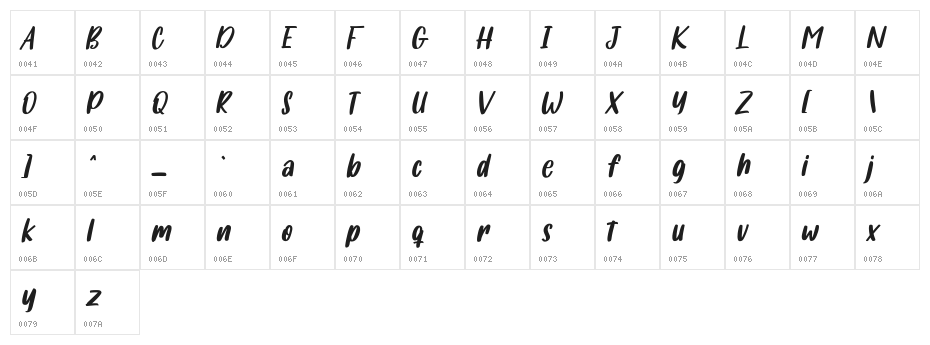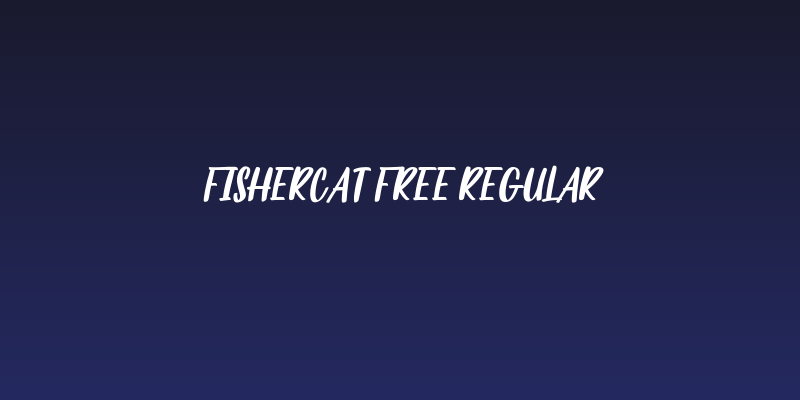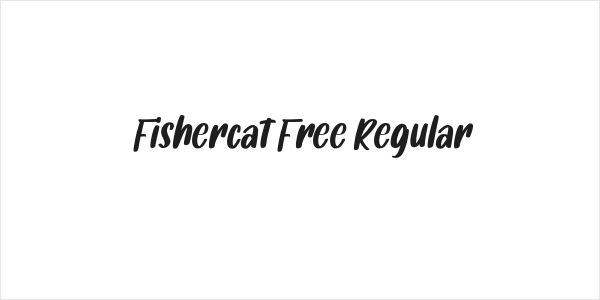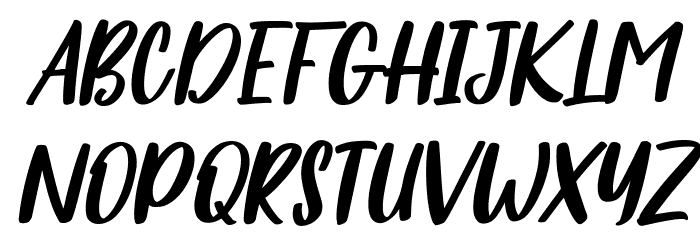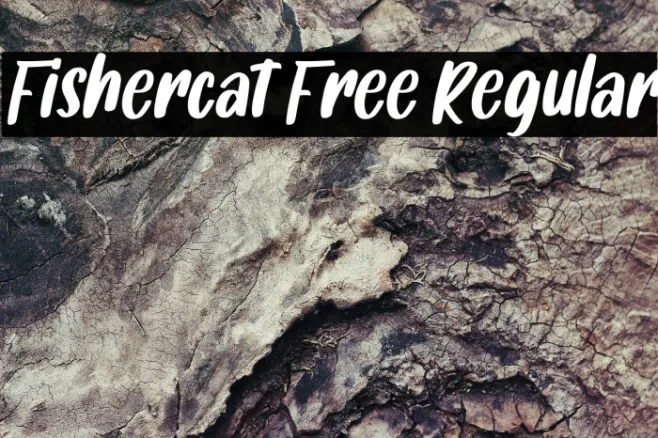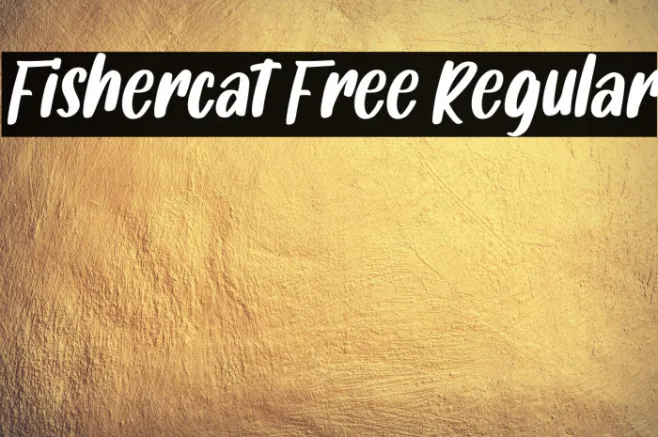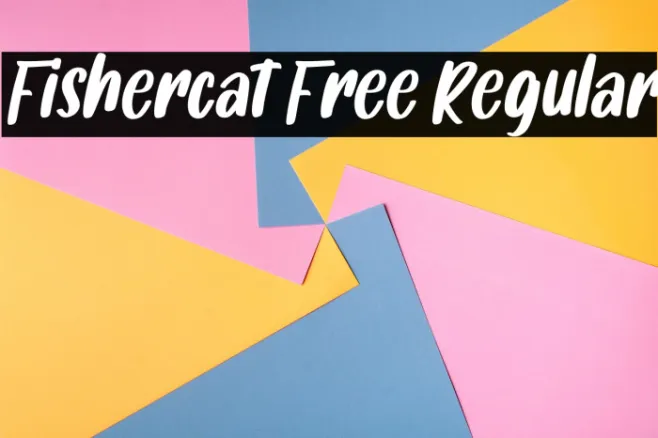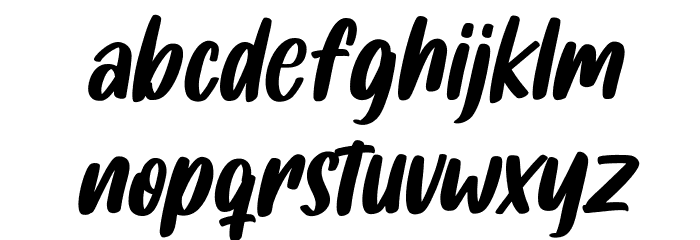
Fishercat Free Regular Font
Fishercat Free Regular Description
This font features a bold and expressive handwritten style, characterized by its fluid and dynamic strokes. The letters are slightly slanted, giving a sense of movement and energy. The uppercase and lowercase letters maintain a consistent style, with rounded edges and a smooth flow. The font's playful and casual appearance makes it suitable for creative and informal projects. The characters are well-spaced, ensuring readability while maintaining a cohesive look. This font is ideal for projects that require a personal touch, such as invitations, greeting cards, and creative branding.